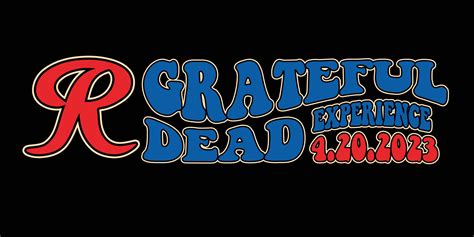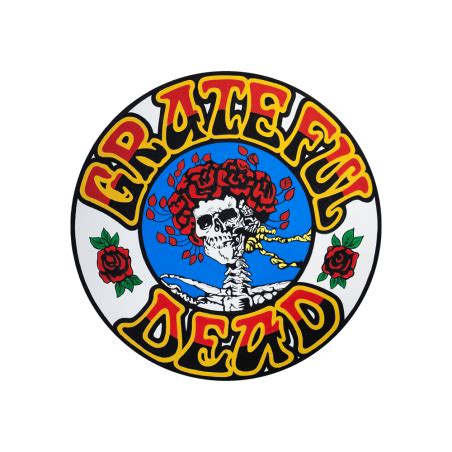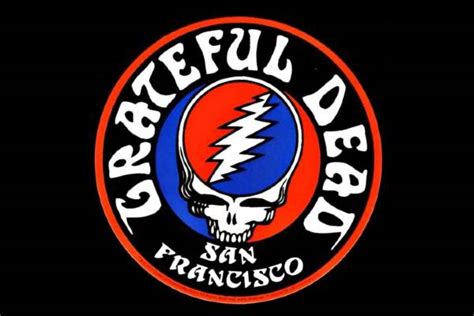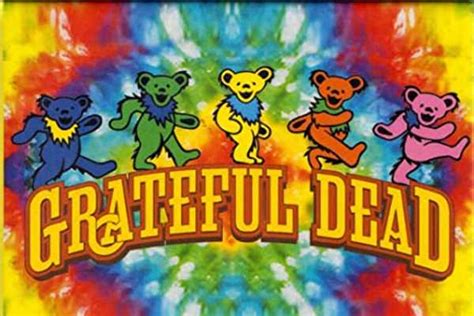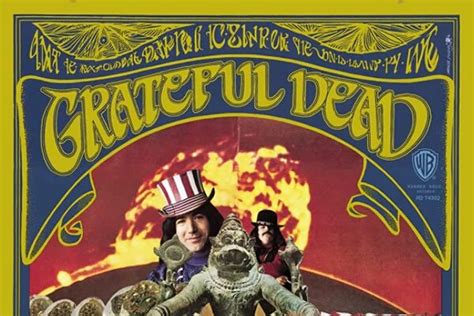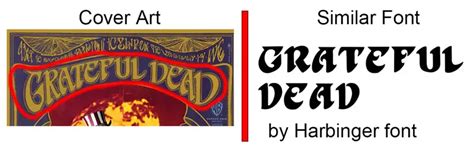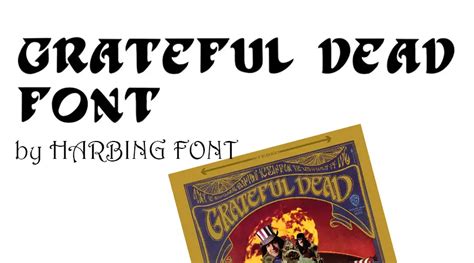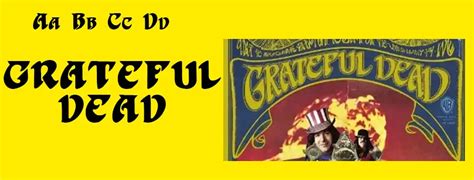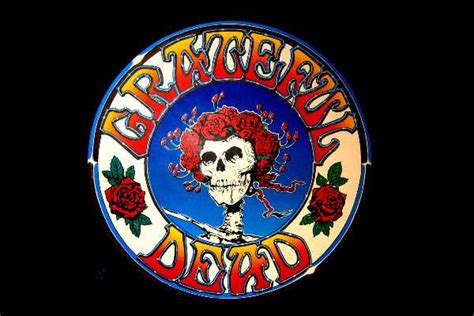
GRATEFUL DEAD FONT
The grateful dead font is a unique and distinctive type style that has captured the essence of the iconic American rock band, the Grateful Dead. This font is a tribute to the band's extensive and dedicated fan base, known as "Deadheads," and their enduring legacy in the music industry. The font is designed to evoke the spirit of the Grateful Dead's music, which is characterized by its eclectic blend of genres, including rock, folk, blues, and jazz, often with extended jams and improvisational elements.
The font incorporates elements that reflect the band's visual aesthetic, such as the iconic skull and roses logo, which has become synonymous with the Grateful Dead. It also includes hand-drawn elements that mimic the band's vintage posters and artwork, adding a nostalgic and whimsical touch. This font is not just a visual representation but also a way to capture the band's influence on their fans and the music community at large.
One of the key benefits of the grateful dead font is its ability to transport users to the vibrant and free-spirited atmosphere of Grateful Dead concerts. The font's design evokes a sense of community and celebration, making it perfect for creating event posters, band merchandise, and even digital content that pays homage to the band's legacy. It allows fans to connect with the Grateful Dead's spirit and share their love for the band's unique style and impact on music culture.